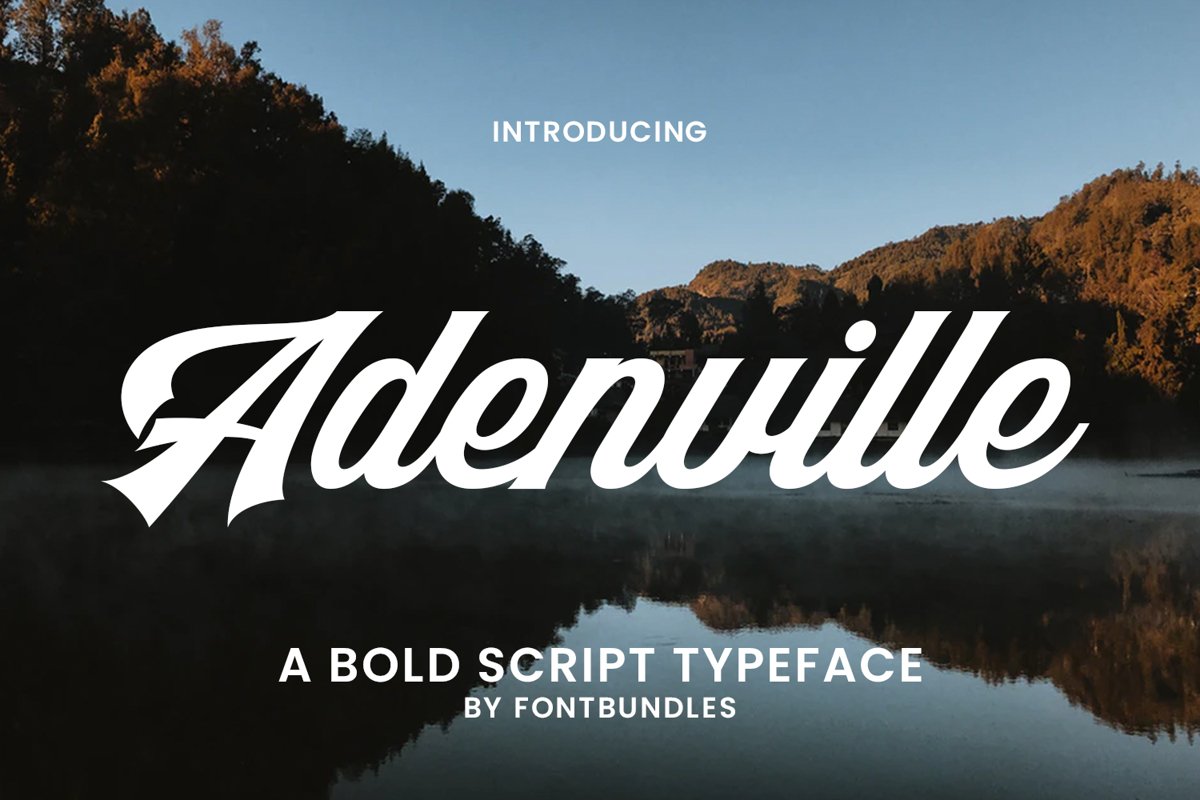
Adenville is a Bold Script typeface. This font perfectly made to be applied especially in logo, and the other various formal forms such as invitations, labels, logos, magazines, books, greeting, packaging, fashion, stationery, novels, labels or any type of advertising purpose and many more.